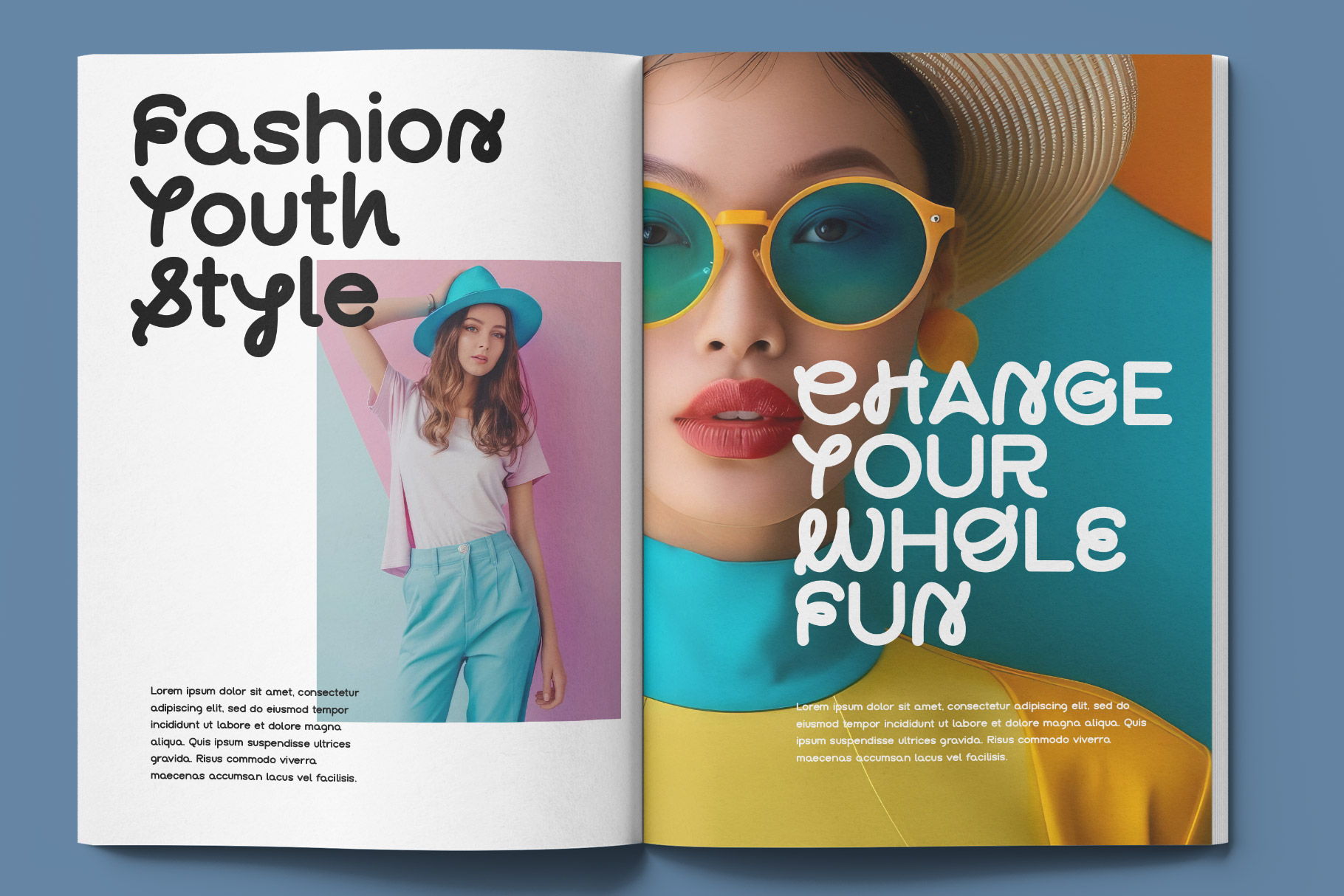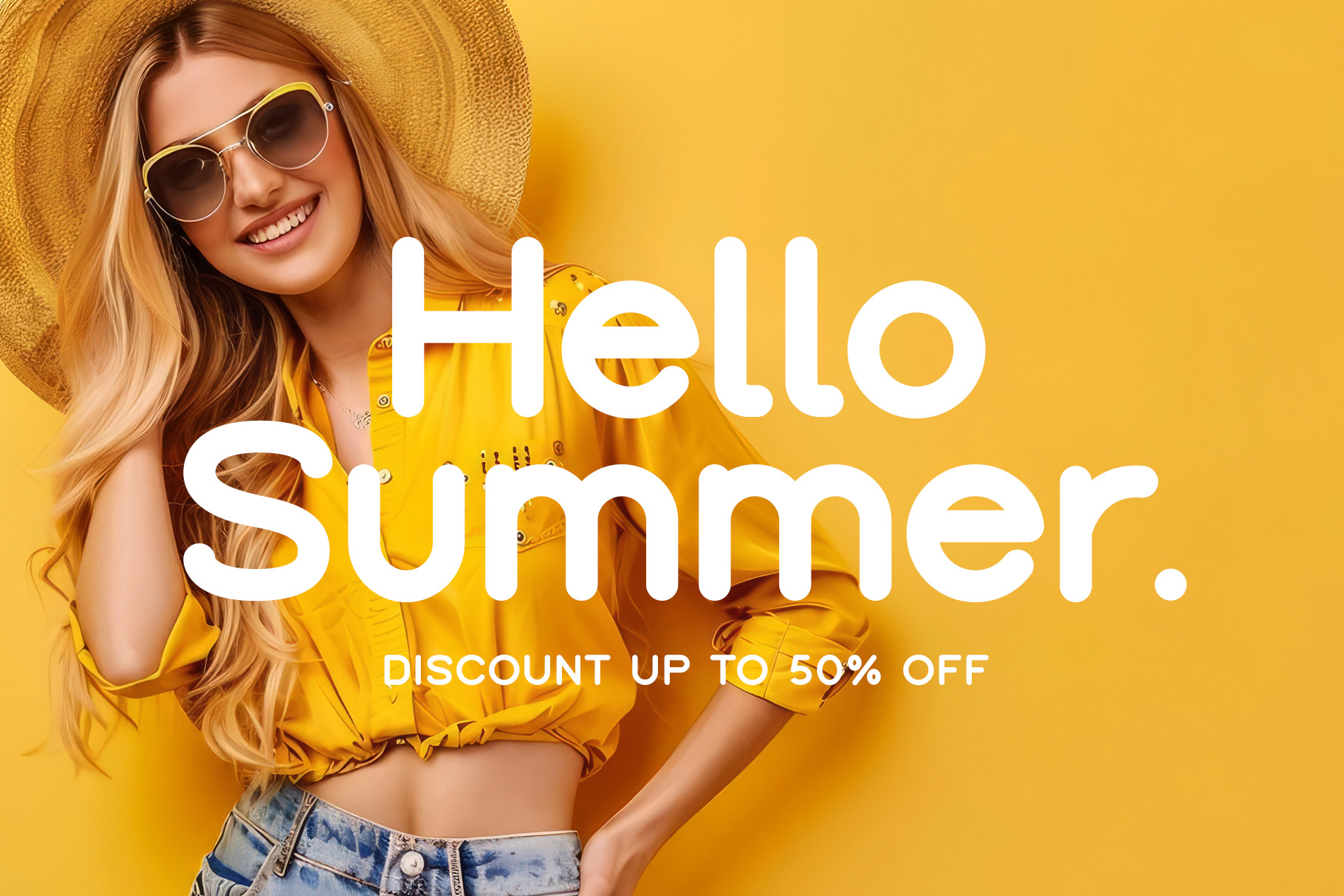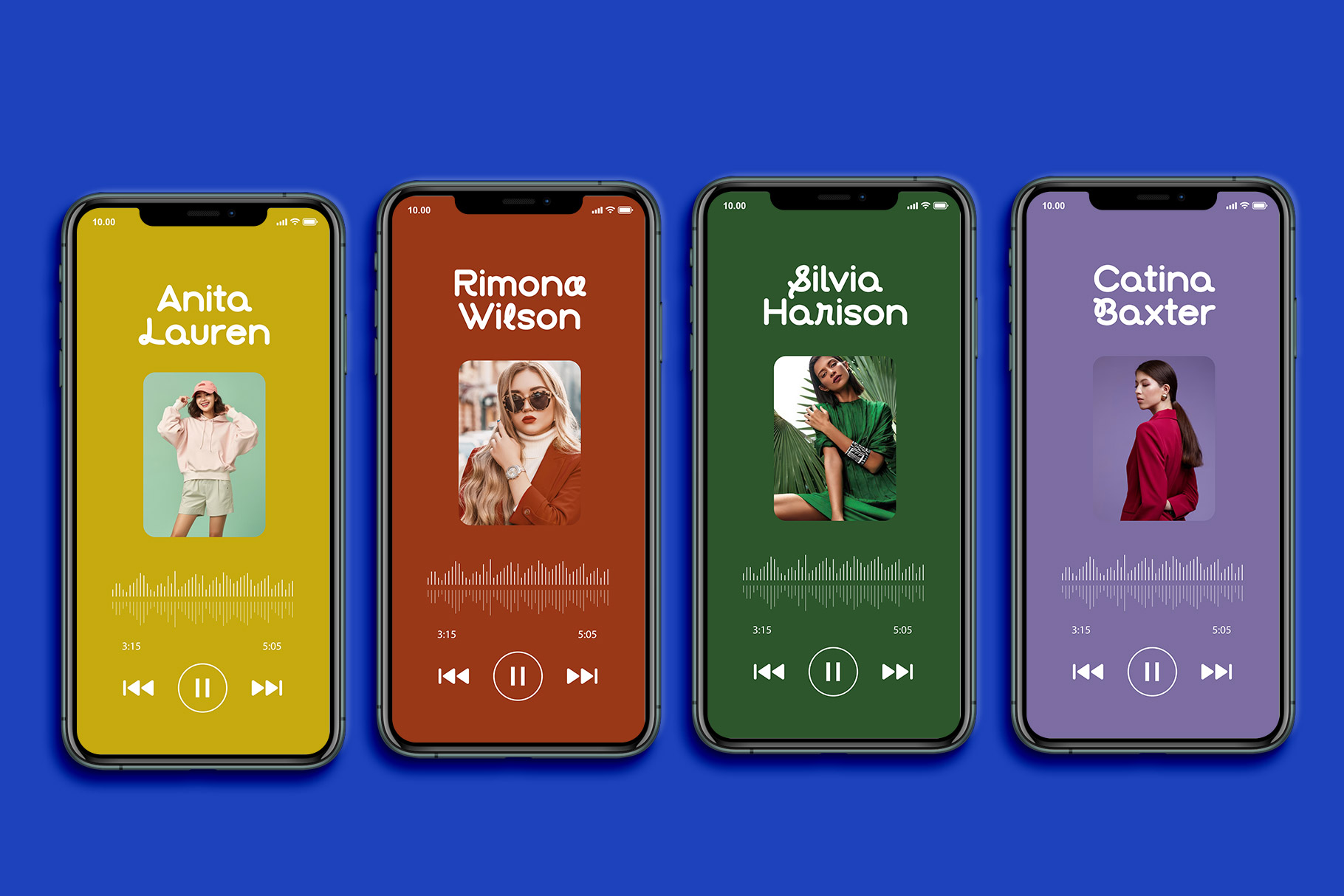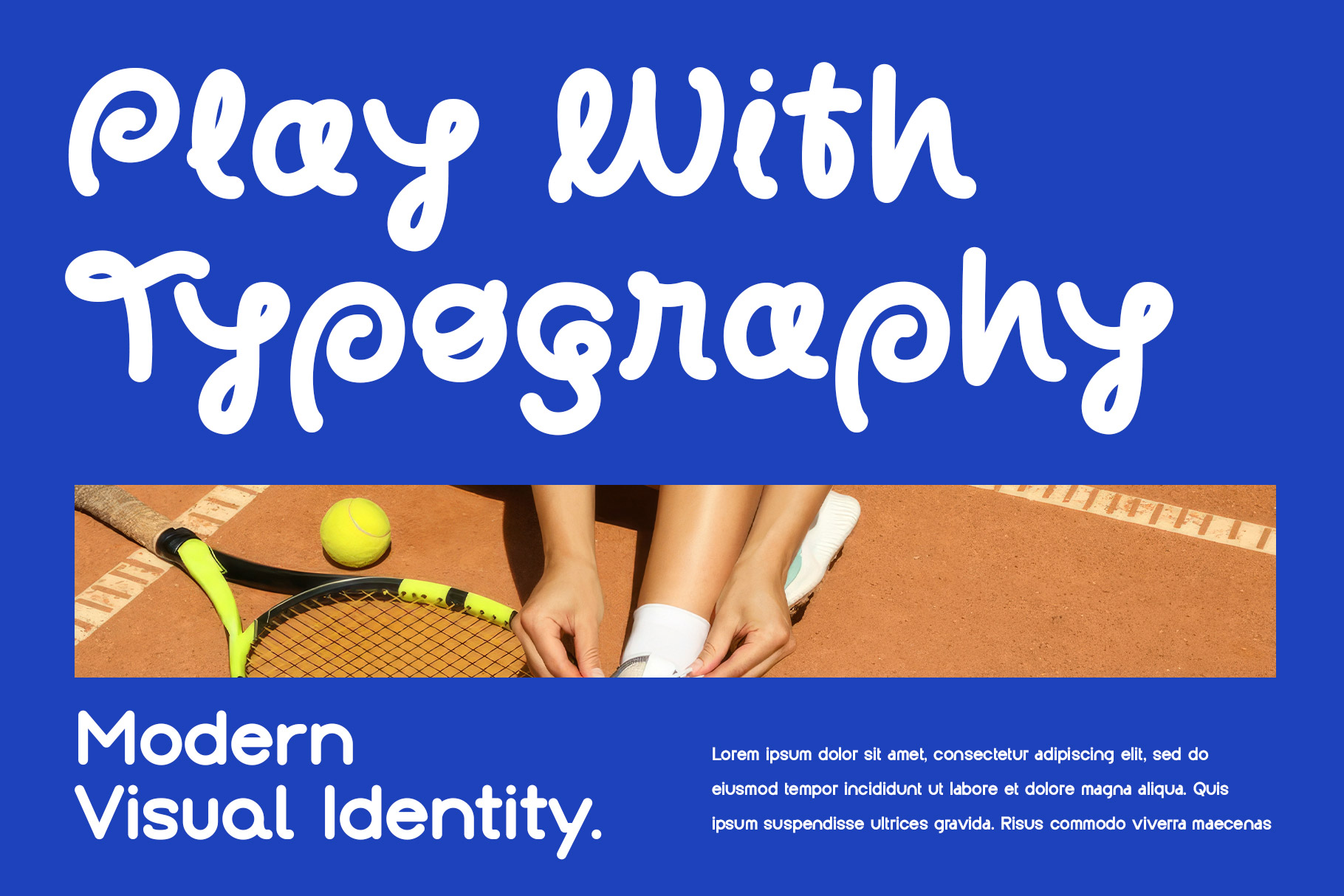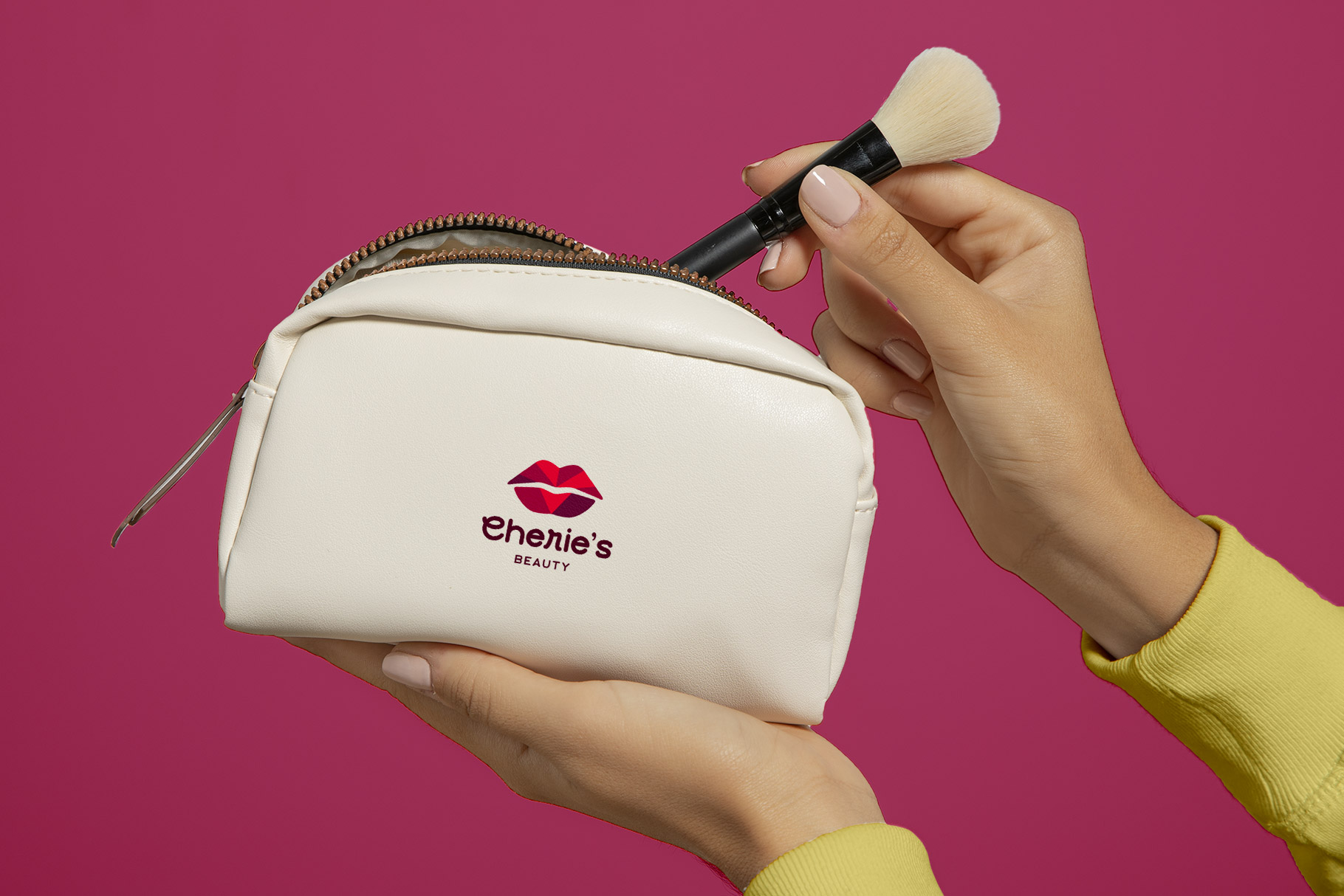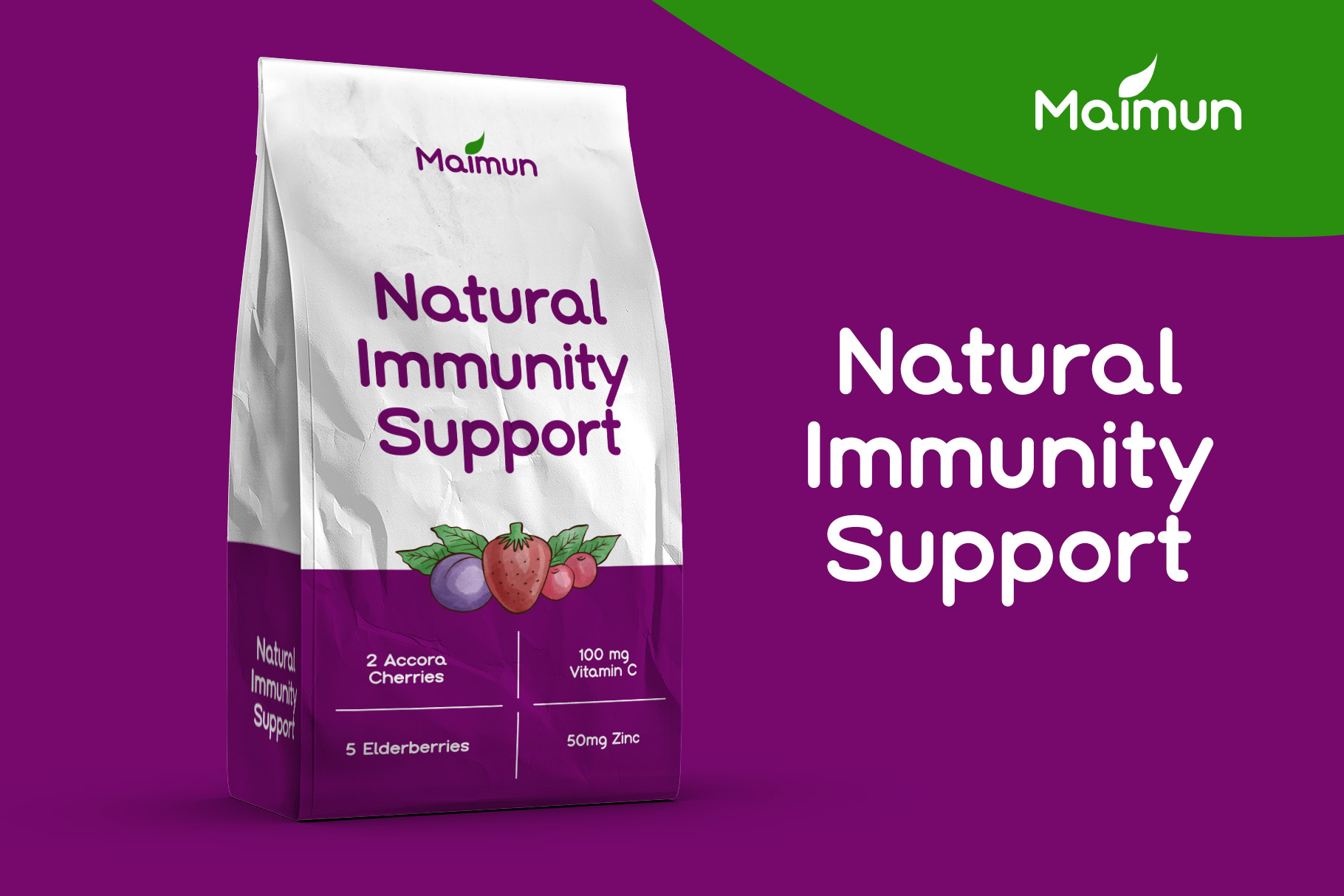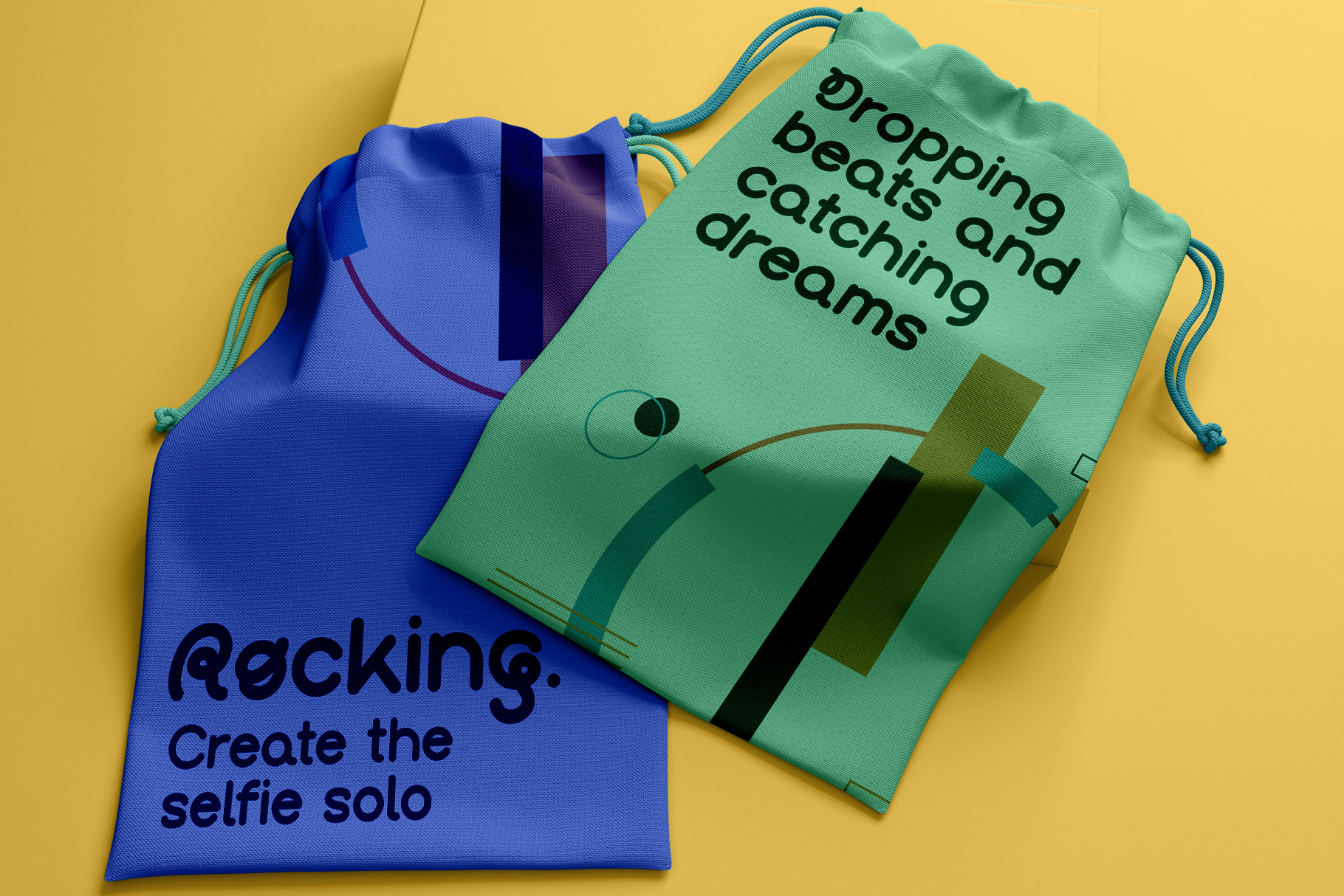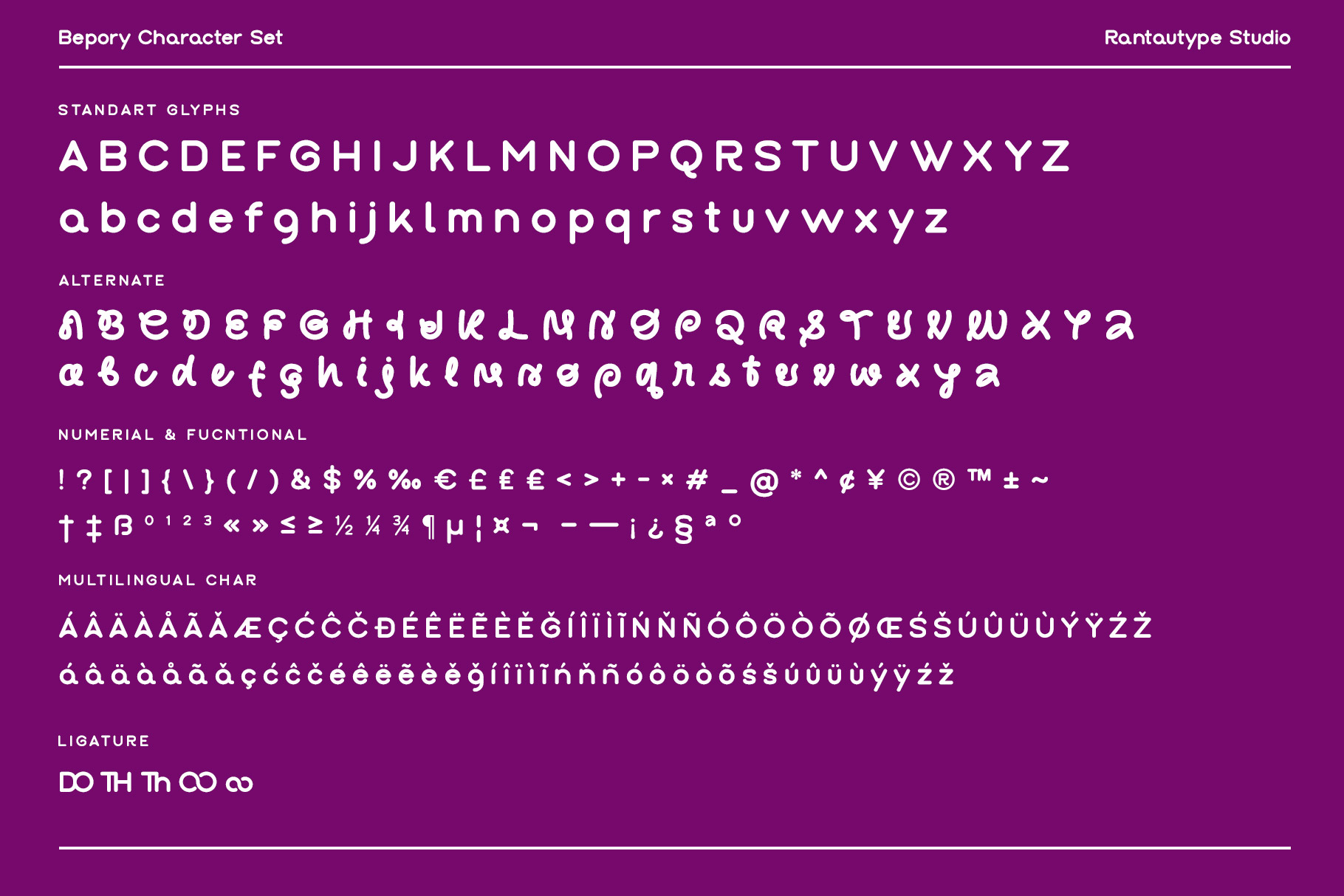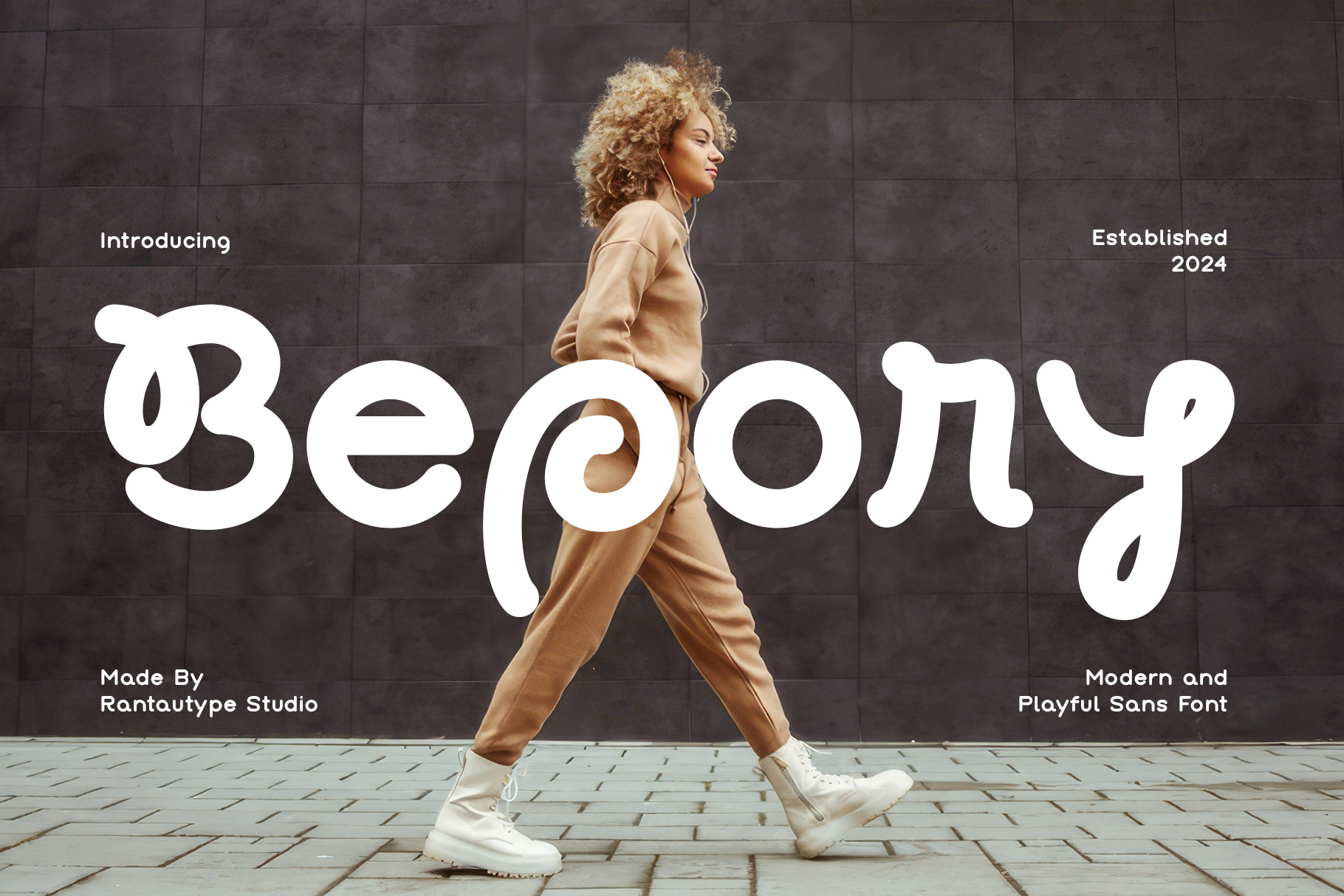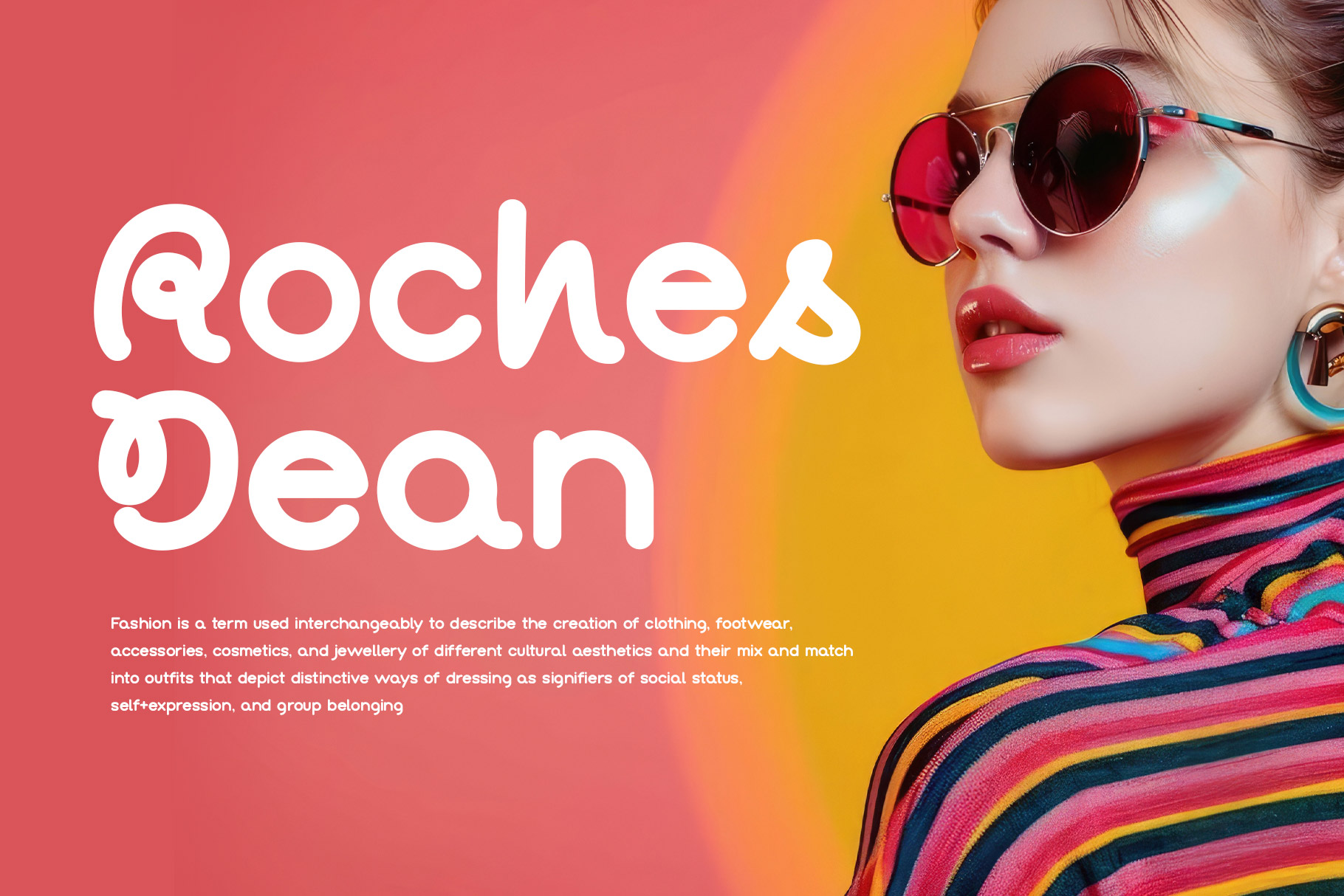
Bepory Unique Rounded Sans Font
Bepory is a casual sans font with a unique character. Bepory bring a stunning of visual design with a strong and fun to create perfect combination. You can mix and match to create awesome design project more attractive.
Bepory is a perfectly choice for any creative endeavor, chic, lifestyle design such as logotype, advertisements, watermark on photography, stationery, branding project, display and magazine, flyer, invitation, corporate brand, product design, label, business project and many other project with modern and fun touch.